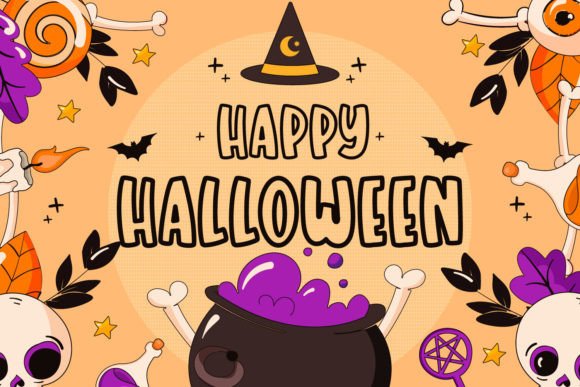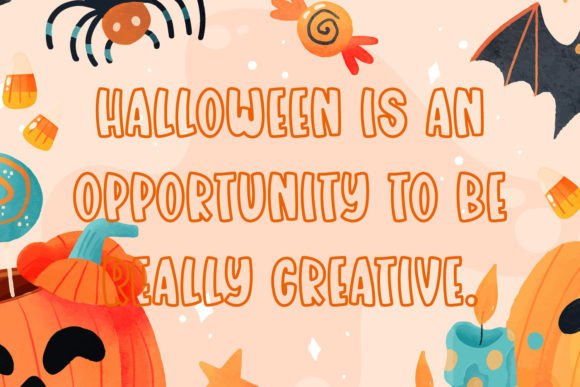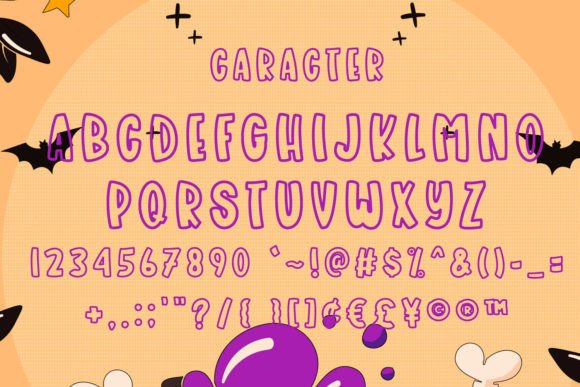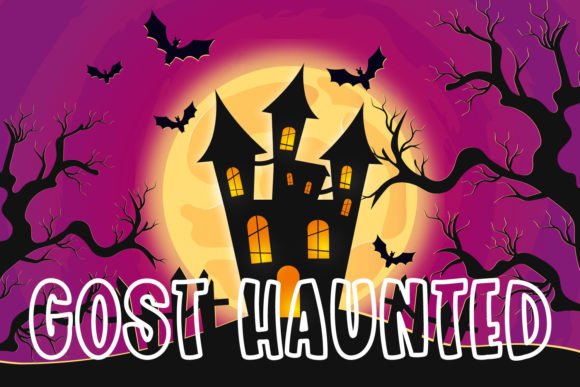
Introduction to Retro Haunted Font
Retro Haunted is a brilliant, fun, and cute display font, suitable to be used in any topic that makes them stand out.
It is perfect for children-themed designs, especially when combined with bright colors .
Key Features of Retro Haunted Font
Why Choose Retro Haunted Font?